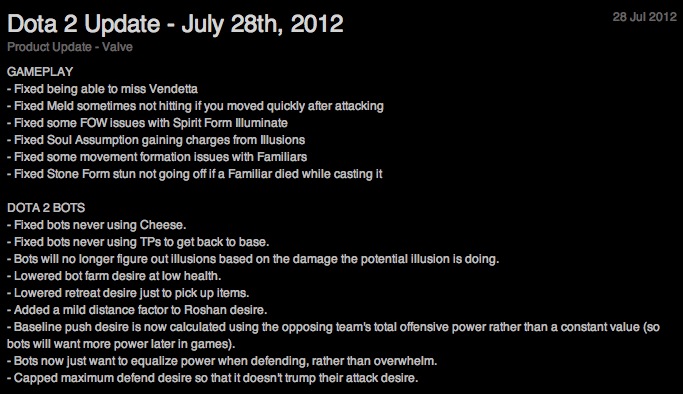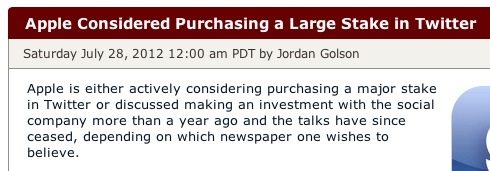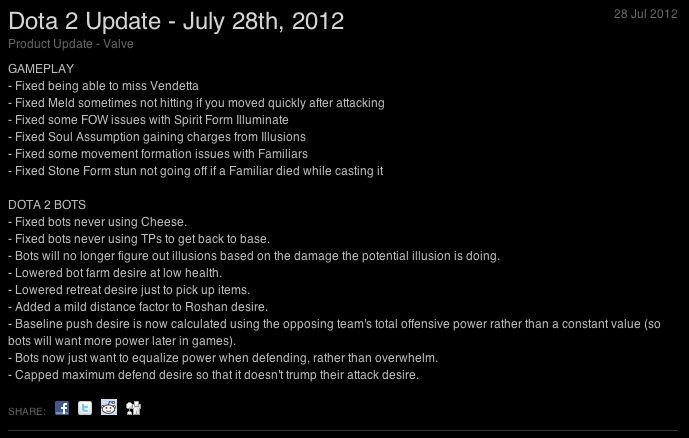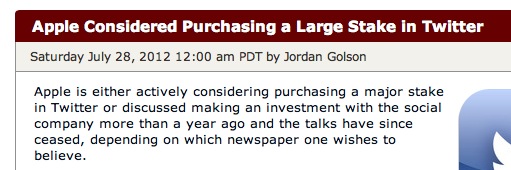
After installation of Mountain Lion on my 2008 Mac Pro I immediately noticed font rendering issue, where in my experience most of the sans serif fonts in highlighted menus, in terminal and on websites appeared to be fatter, bolder, with fluffy edges and more iOS looking than my usual OSX I'm used to for years. To my surprise the usual trick of changing font smoothing by issuing command in terminal:
defaults -currentHost write -globalDomain AppleFontSmoothing -int 2
didn't work and I would get reply:
The domain/default pair of (kCFPreferencesAnyApplication, AppleFontSmoothing)
does not exist
despite the fact Font smoothing was enabled in System Preferences. Disabling font smoothing would revert fonts to their beautiful, smooth shape as I know it for years and smoothing tweak in terminal would work again, almost as if there was a bug and "font smoothing" setting in System Preferences of Mountain Lion worked in reverse to that of Lion - unticking would enable it, ticking would disable it. Bear with me for a second though, this post is not just about smoothing option in prefs.
The weird thing is - when I popped in to discuss this issue on one of the UK computer forums, and shown them screen shots, rather large number of people said I got it all wrong, and OSX should be displaying everything in bolder font and that they never experienced it looking any different!
It's a surprise to me, I have three macs at home, 7 macs at work, never experienced this font boldness bug before on any of the OSX's, to be honest, I couldn't work or stand it for more than 5 minutes, but I thought it would be interesting to see what mac community thinks about it.
So, macinoshians - which of the following do you see on your Mountain Lion screens and which do you think is "normal" OSX look.
Example 1 - front page of this great site in Safari:
Top. Mountain Lion on my MP08 default, smoothing in System Preferences
Bottom. The way Lion on my MP08 and every mac in my life see it
As a benchmark - for comparison:
from left to right:
1. Mountain Lion 2. Lion default/Mountain Lion with smoothing off 3. MS Windows smoothing 4. No smoothing at all
Example 2: terminal (iTerm)
Top. Mountain Lion default, smoothing in System Preferences on
Bottom. Lion default, smoothing in System Preferences on
Example 3 - fragment of steampowered "news" page:
Top. Mountain Lion default, smoothing in System Preferences on
Bottom. Lion default, smoothing in System Preferences on
So, to me, all "top" examples look wrong. However, a lot of people I asked today claim they have never seen OSX looking any different than the "top" examples.
What's your take on it - let's not quote the pictures, just point top/ML look or bottom/Lion look. If your Mountain Lion doesn't look like my screenshots, but looks like my screenshots of Lion, post it too - there will be some bug report to fill. 🙂
I guess I was the only one with this bug then? 😀
I experienced the same thing upgrading from Lion to ML. Noticed the "fatter" fonts immediately on ML, but not a show stopping bug. Also not a large enough problem to warrant the thorough research to try to change back to the default/previous appearance.
Well, the bold version is the default rendering setting for Macs, so assume that's what most people are familiar with. I however, just like you, can't stand that bold version and have been using the lighter one for several years.
The bold version doesn't even make sense. Why antialias black text using all the colors of the rainbow? The lighter setting always antialiases text using shades of the text color.
I have not experienced the bug you're talking about, though.
Also, since you have to get close to the screen to really see the difference, almost compare pixels, a higher quality JPEG setting would be better, or just use PNG as they are OS screenshots and not photographs (which would take a lot of space in the PNG format).
That was the very first thing I noticed after upgrading. At first it was annoying but I am kind of getting used to it as the hours go by.
It looks cleaner this way, but to experience the cleanerness you need a good monitor.
It's the first thing i noticed when i installed Mountain Lion.
I have never seen OSX looking any different than the "BOTTOM" examples (i've had Macbook Pro, Mac Pro and Mac Mini).
Thanks for giving me the solution, i disabled font smoothing and now i have my "traditional" fonts, I would have hated these new fat fonts...
You appear to have had subpixel font rendering disabled on Lion, using the "Best for CRT" font rendering. That is absolutely not how fonts are supposed to look in OS X on a flat panel display.
This is really a pity. As an interaction designer not wanting to become biased, I always also worked with Windows and Linux, but throughout the Mac always remained superior, always remained my main productivity system. Now the Mac platform gets more and more bugs and design flaws. This is sad, as I see no serious alternative for my needs. Until Mac OS X 10.6.8 Apple has satisfied me very well. Due to lack of alternatives I will upgrade and remain with the Mac, but there is no joy of use in it anymore, and as soon as a serious alternative shows up, I'm gone!